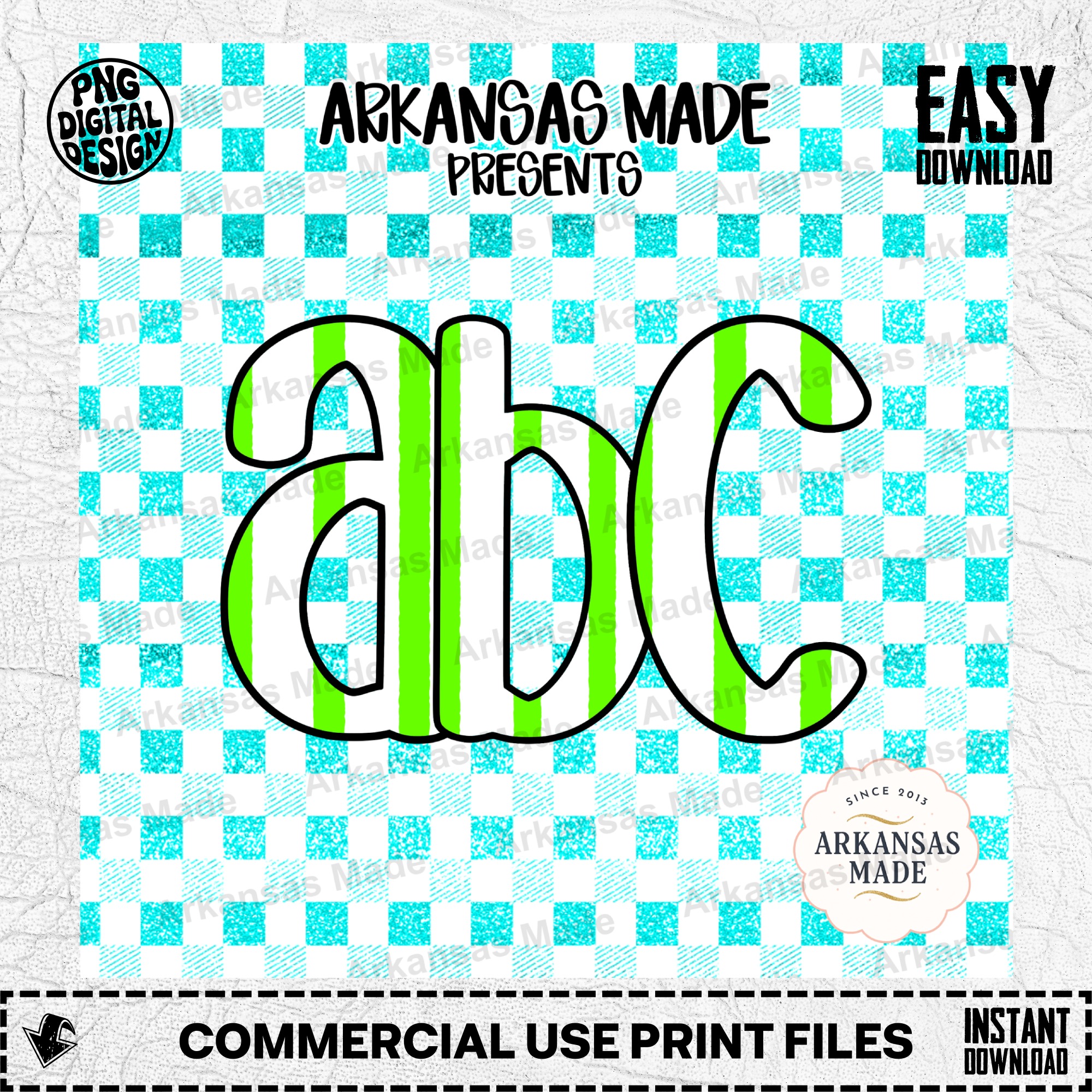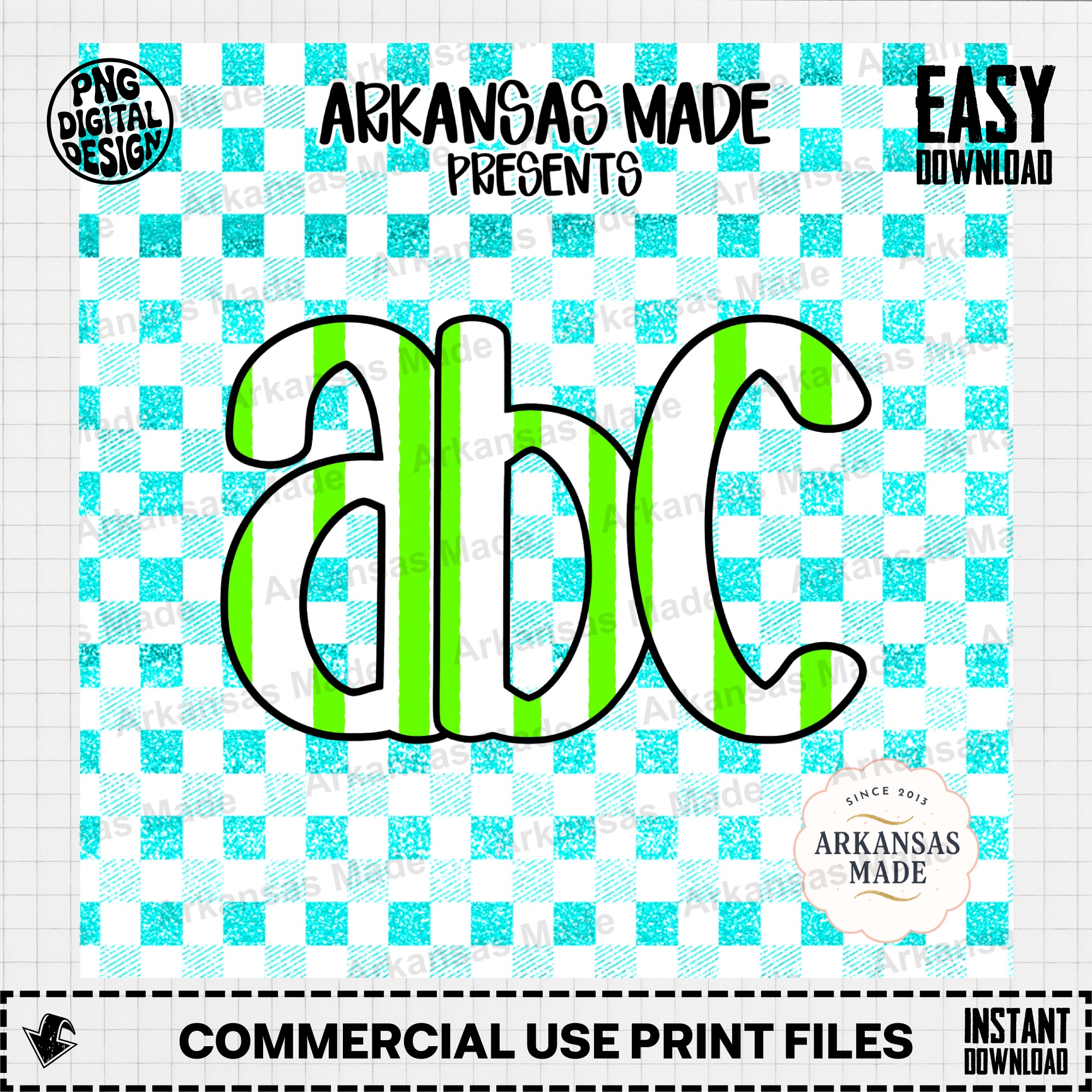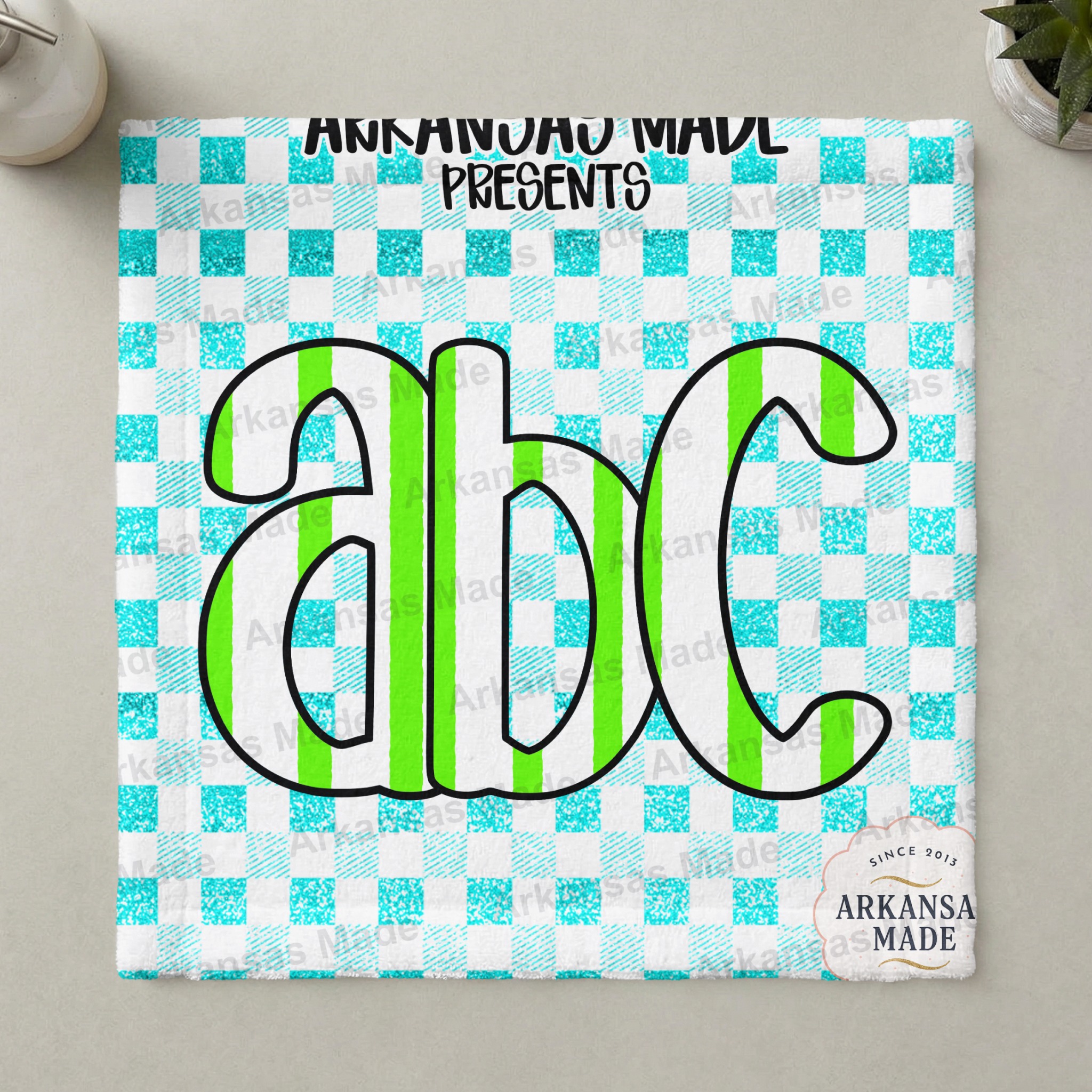
Digital Download Alpha Set Neon Green Striped Letters, Aqua Glitter Checkered Alphabet PNG, Preppy Varsity Font, Crafting Supplies
Unleash creativity with this vibrant Neon Green Striped Alphabet Digital Download Alpha Set, featuring eye-catching aqua faux glitter checkered PNG letters. Perfect for crafters, teachers, and small business owners, this preppy varsity font design adds a cheerful pop to any project. Ideal for back-to-school items, personalized gifts, or stylish sublimation crafts, bringing a fun, energetic vibe to your creations. Spruce up apparel, invitations, or classroom decor with this unique digital alpha set.